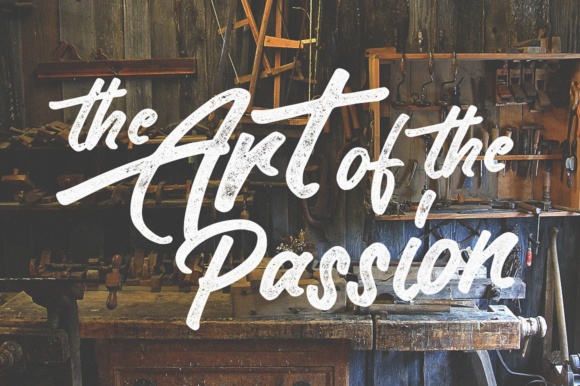
The Author Font: A Striking Typeface to Elevate Your Designs
I’ll never forget the time I was working on a project for a client who needed a unique and eye-catching font to match their brand’s personality. I spent hours scouring the internet for the perfect typeface, but nothing seemed quite right. That was until I stumbled upon the Author font. With its striking look and beautiful design, it was exactly what I needed to take my project to the next level.
A Personal Review of the Author Font
- ✨ The Author font has a truly unique and striking look that sets it apart from other typefaces.
- ✅ It’s incredibly versatile and can be used for a wide range of design projects, from logos and branding to headings and body text.
- 💡 The font comes with a range of OpenType features, including glyphs and stylistic alternates, which allow for even more customization and creativity.
- 🎨 The font is also highly legible, making it perfect for use in both digital and print designs.
While the Author font is an amazing typeface, there are a few small quirks to be aware of. For example:
- 🤔 Some users have reported issues with kerning, particularly when using the font at smaller sizes.
- ⚠️ The font may not be suitable for body text, as it’s quite ornate and attention-grabbing.
The Author font was designed with the goal of creating a unique and striking typeface that would stand out in any design. The designer, who wishes to remain anonymous, was inspired by a range of sources, including classic typography and modern design trends.
| What is the Author font? | The Author font is a beautiful and striking typeface that’s perfect for designs that need to stand out. |
| Does the Author font come with OpenType features? | Yes, the Author font comes with a range of OpenType features, including glyphs and stylistic alternates. |